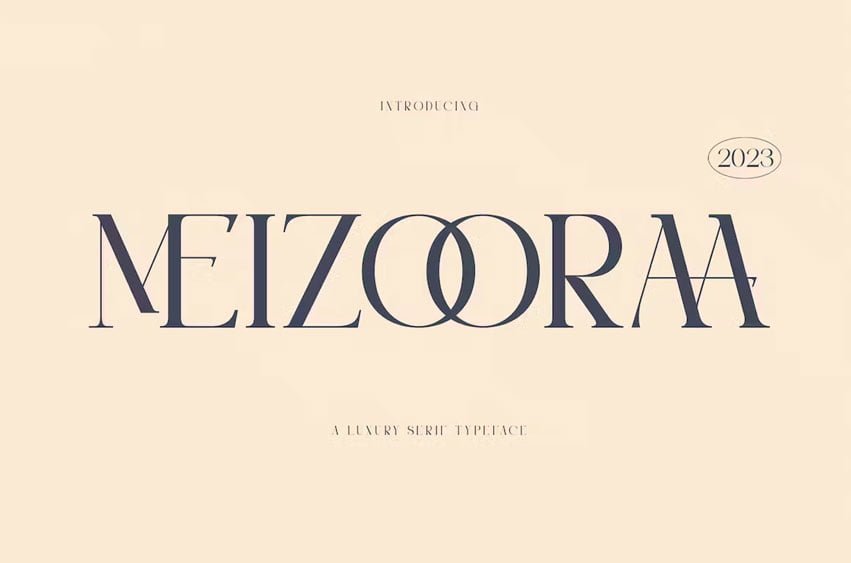
Meizooraa Font is a display serif font that we recommend using in the following types of work; magazines (titles and layouts), logos and branding, invitations, quotes, blog headers, posters, advertising and body copy.